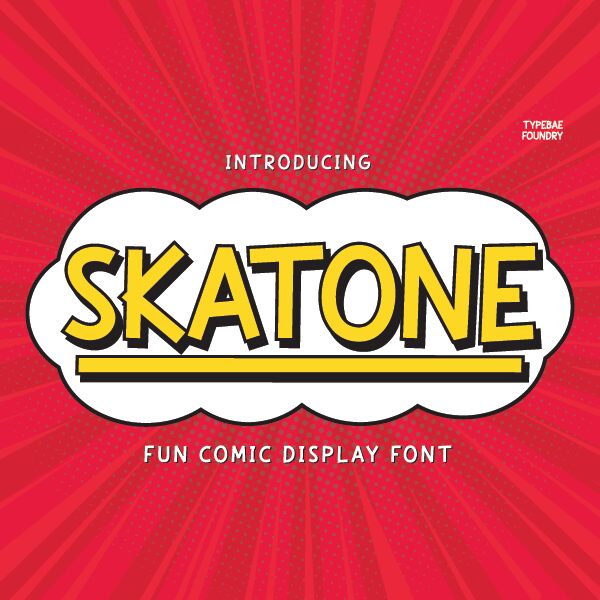
Skatone font, created by Typebae Foundry, is a free comic-style font full of vibrant energy and expressiveness. Designed to capture attention and evoke a sense of lightheartedness, this typeface is perfect for those looking to add a dash of humor and vibrancy to their work. The font embraces the informal and eye-catching essence of comic lettering, making it both contemporary and engaging.
Its playful nature makes Skatone highly suitable for use in comics, graphic novels, children’s books, and casual branding. It also works beautifully in posters, flyers, social media graphics, event invitations, and website designs that require an energetic and dynamic touch.